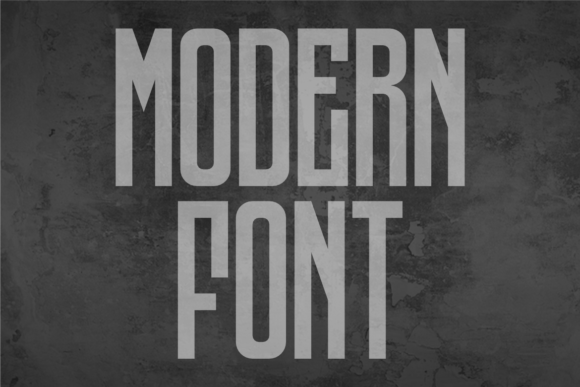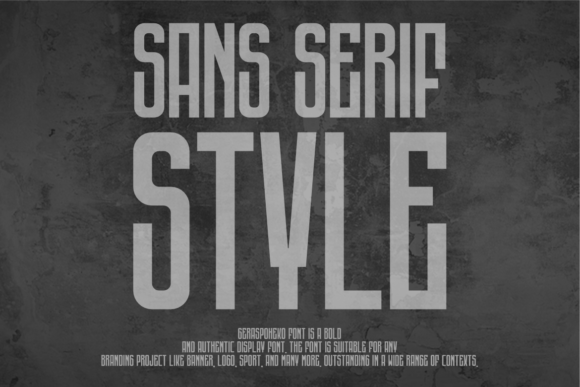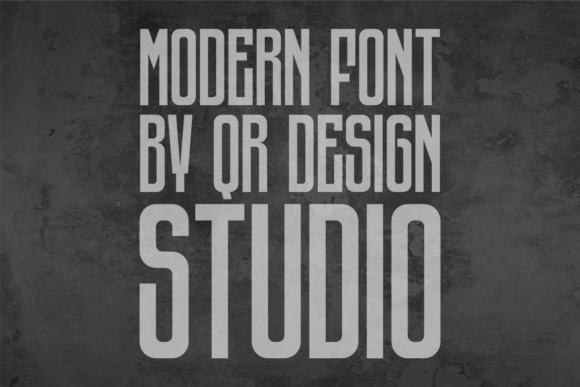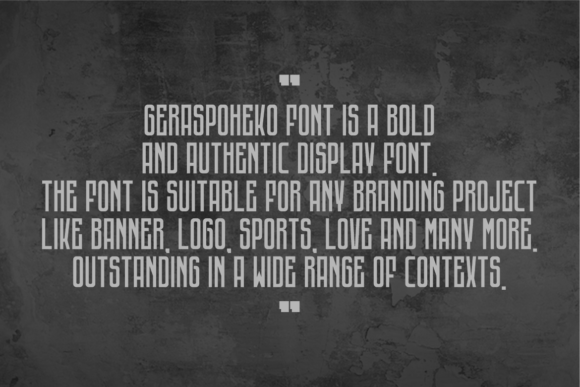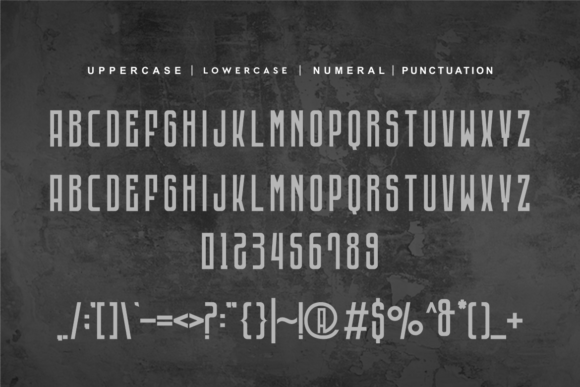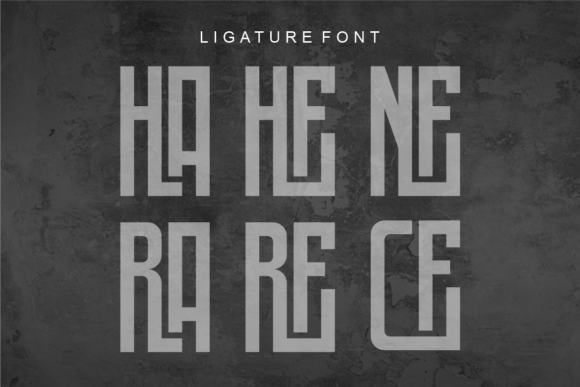
Introduction to Geraspoheko Font
Have you ever been working on a creative project, staring at a blank screen, and suddenly a bold idea strikes you? That’s exactly what happened when designers discovered the Geraspoheko Font – a game-changing display font that adds a touch of authenticity to any branding project. Its unique style and versatility make it an instant favorite among designers.
What sets the Geraspoheko Font apart from other design resources is its exceptional quality and wide range of applications. From logos to sports branding, this font is the perfect companion for any creative endeavor. Whether you’re working on a high-quality project or just need a reliable design tool, the Geraspoheko Font is an invaluable resource. Plus, with its transparent background, you can easily integrate it into your design without any hassle.
Key Features of Geraspoheko Font
- Comes in a single weight, making it easy to use in a variety of design contexts without worrying about font pairing.
- Designed with a modern aesthetic, making it perfect for contemporary design projects, such as branding, logos, and digital art.
Honest Review: Geraspoheko Font
I recently had the chance to work with the Geraspoheko Font in a creative project, and I must say it’s been a pleasant experience. The font’s high quality is immediately noticeable, making it a great addition to any design resource.
Here are some of the things that work well with the Geraspoheko Font:
- ✨ Unique and stylish design that adds a touch of elegance to any project
- ⚠️ Limited character set, which may not be suitable for long-form text projects
- ⚠️ May not be as versatile as some other fonts in terms of font size and style
Overall, I’m quite impressed with the Geraspoheko Font. It’s a solid choice for designers looking for a high-quality, free font that can add a touch of sophistication to their projects. With a little creativity, it can be a valuable asset in any design resource collection.
Tips for Getting the Most Out of Geraspoheko Font
For optimal results, use the Geraspoheko Font in conjunction with a transparent background to create a clean and modern design. You can also experiment with different font sizes and colors to achieve the desired effect. Additionally, consider using the font in conjunction with other design resources such as images and shapes to create a high-quality design project.
Common Use Cases for Geraspoheko Font
The Geraspoheko Font is ideal for use in creative projects such as logo design, branding, and marketing materials. It is also suitable for use in presentations, documents, and other business materials. Additionally, the font can be used as a design resource for personal projects such as art, photography, and writing.